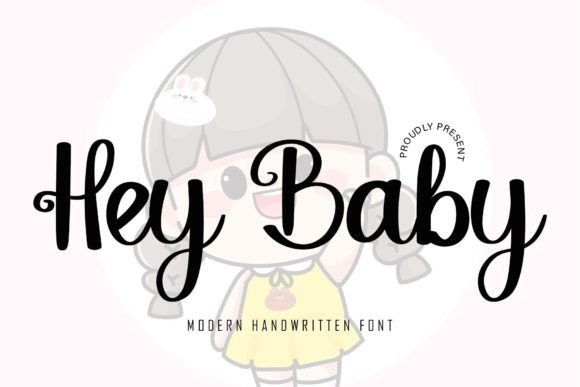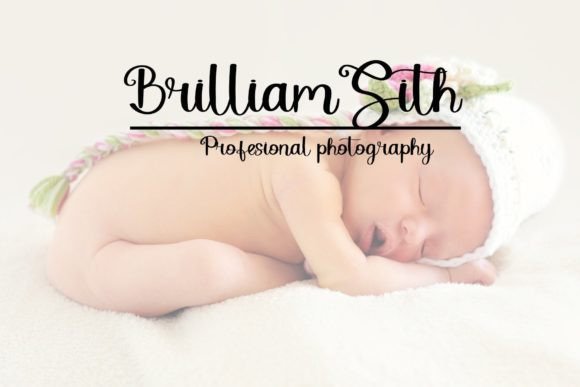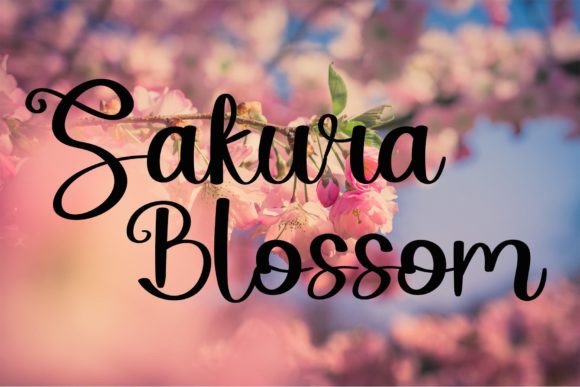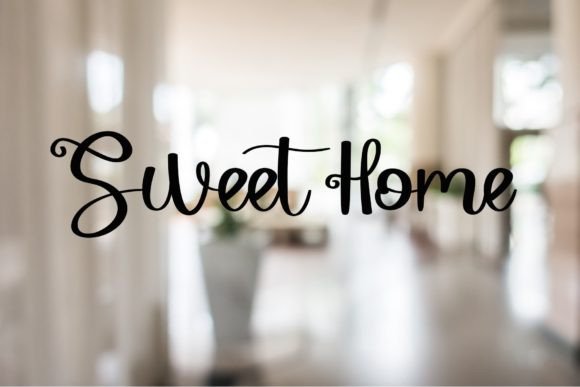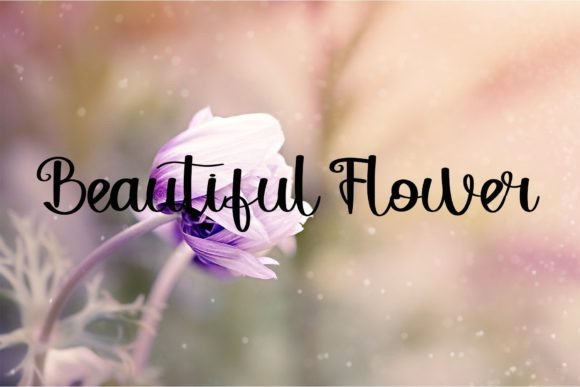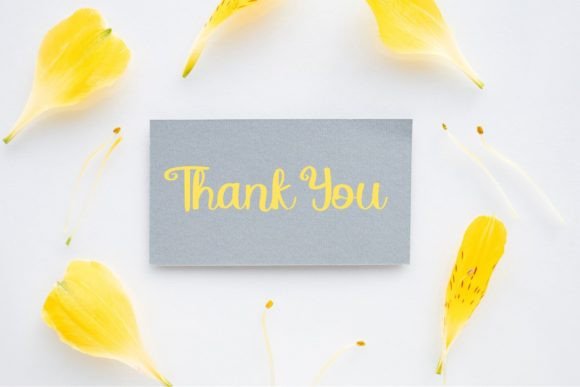
Hey Baby Font
About Hey Baby Font
Hey Baby is a cute and sweet calligraphy script font that brings characters to life as they dance along the baseline, adding an adorable spark to any creative design or project you wish to develop.
The cute and sweet qualities of Hey Baby make it an ideal choice for designs that aim to convey a sense of charm and playfulness. Its calligraphic script style lends a touch of personality, making it suitable for various applications.
For creative projects, Hey Baby ensures an adorable and visually engaging experience. Whether used for branding, invitations, posters, or other design endeavors, the font elevates the overall aesthetic with its playful and dynamic script.
In branding, Hey Baby contributes to a distinctive and charming identity. Its adorable spark adds a touch of warmth to logos, packaging, and promotional materials, making your brand stand out with a delightful flair.
Imagine this font on baby shower invitations, greeting cards, or any other project that requires a cute and playful touch. The dancing characters create a visually pleasing and joyful design that enhances the overall appeal.
In conclusion, Hey Baby is more than just a font; it’s a creative tool crafted to bring an adorable and sweet spark to your designs. Whether used for formal or expressive projects, this calligraphy script font ensures that your creations radiate with charm and playfulness.